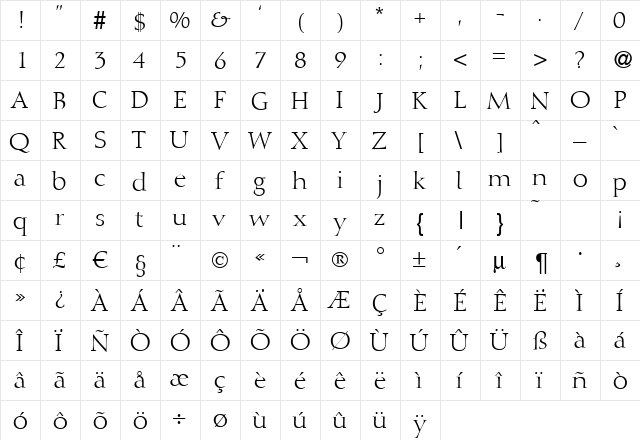
D730-Roman Regular
Design Context for D730-Roman Typeface
D730-Roman takes a measured approach to typography — its balanced proportions and neutral character make it a reliable workhorse for both digital and print work.